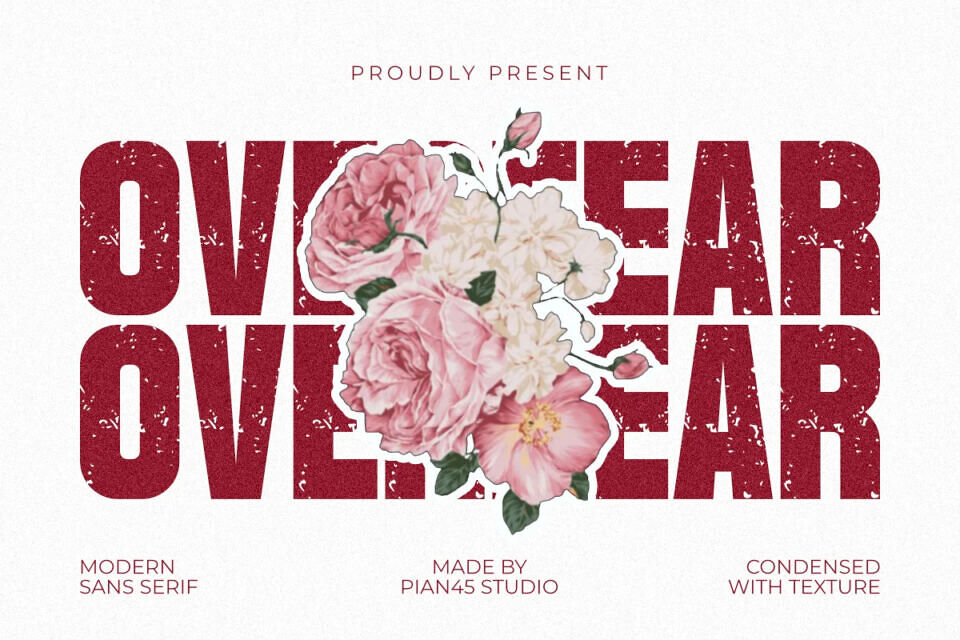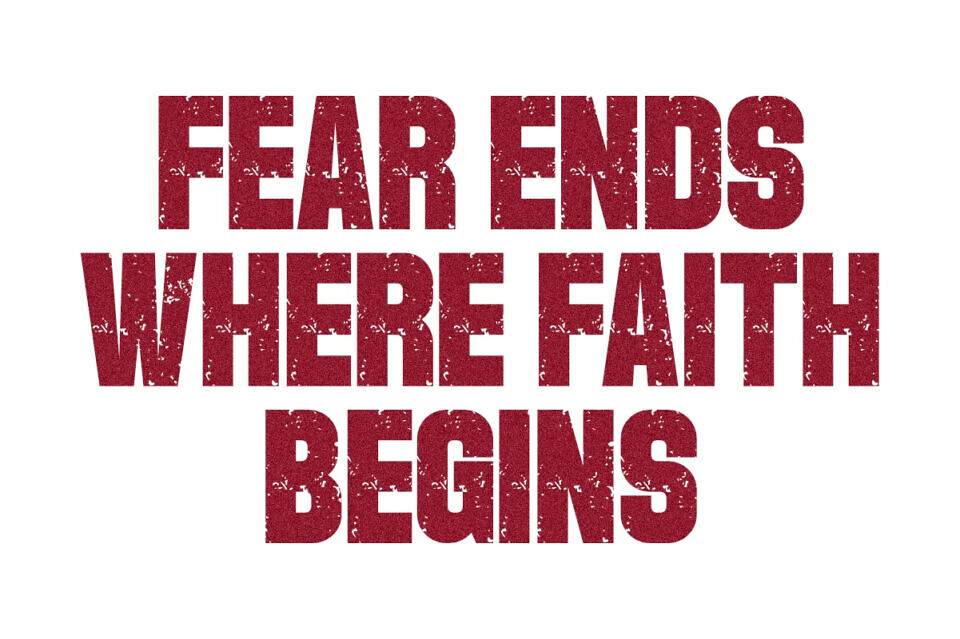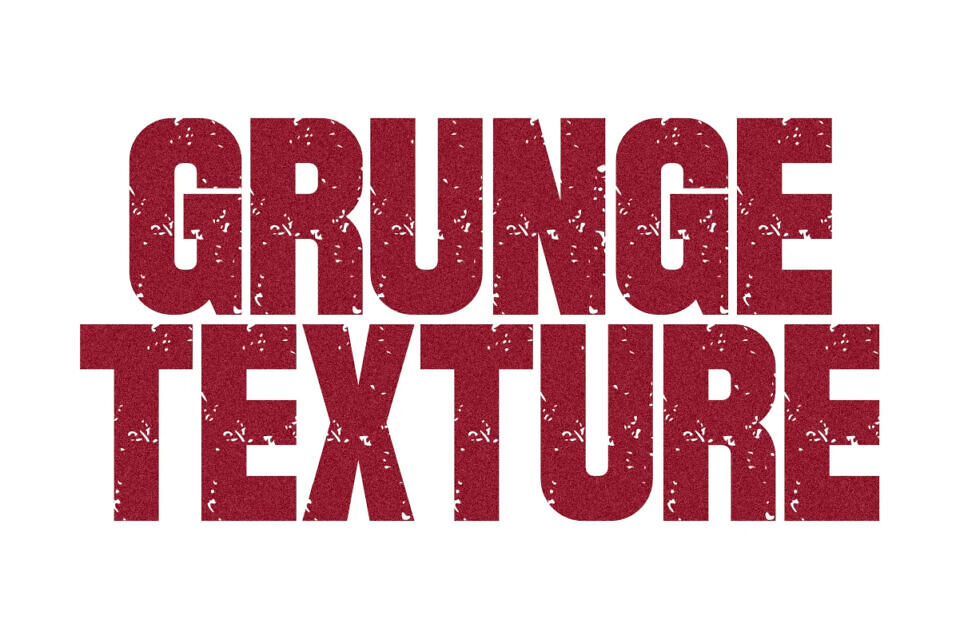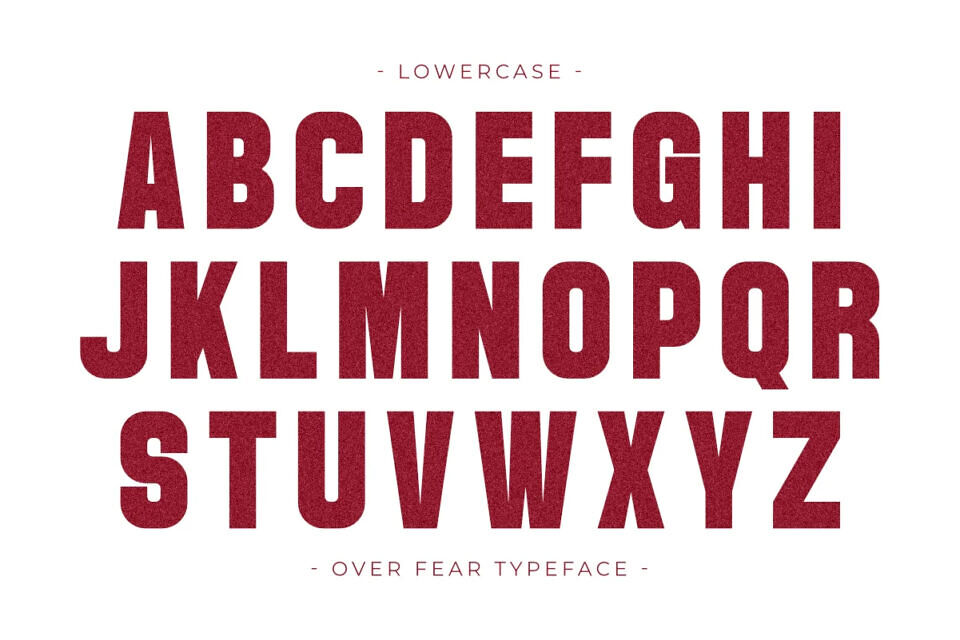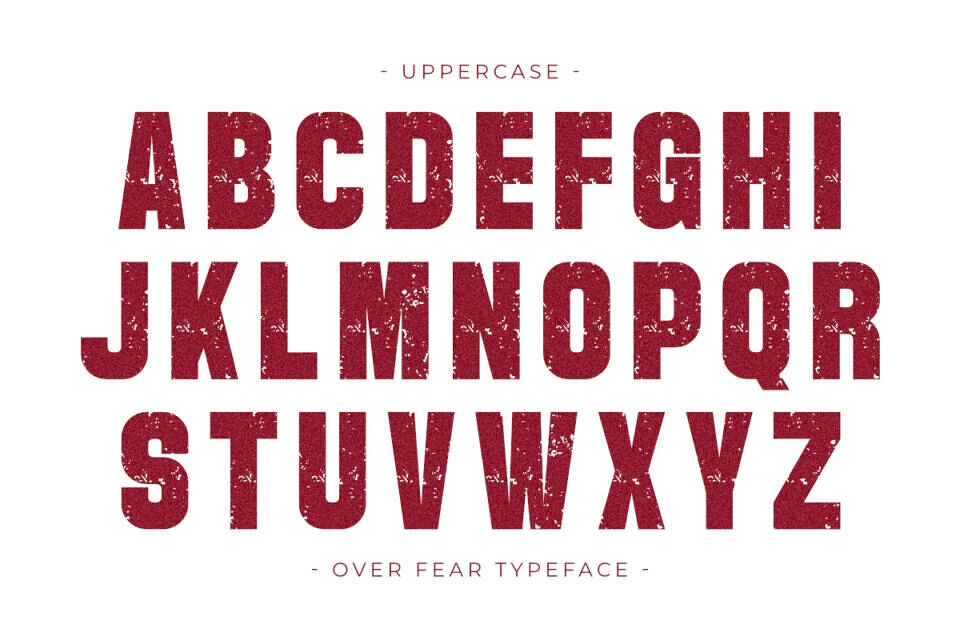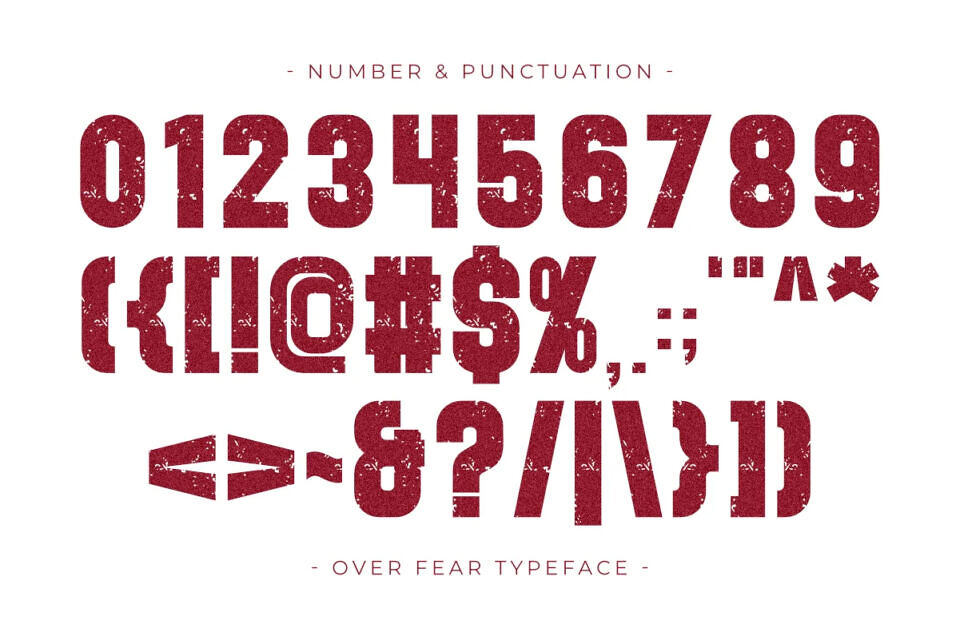
Over Fear is a commanding and rugged Modern Sans Serif font that features a unique condensed and textured design. This distressed typeface is built for high-impact visual storytelling, making it perfect for streetwear branding, sports logos, gritty posters, and urban-style headlines.
Its bold, blocky characters with a worn-out aesthetic deliver a powerful and fearless presence, ensuring your designs stand out in merchandise, apparel, and any project requiring a strong, textured vertical look.